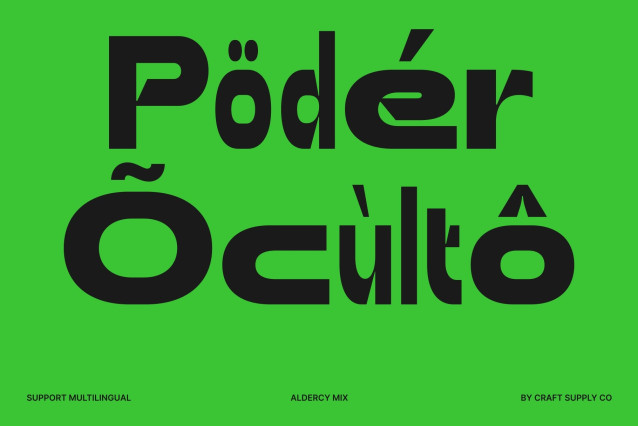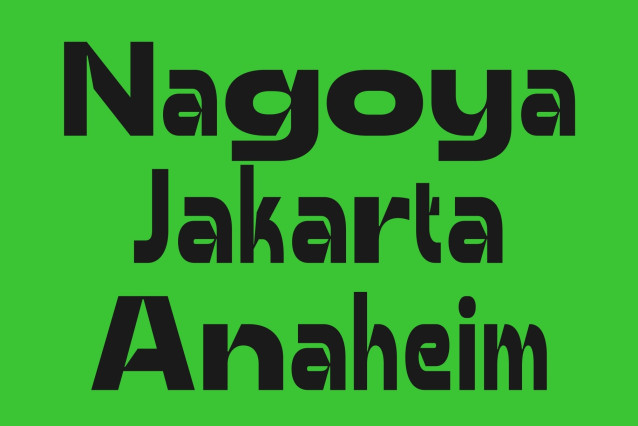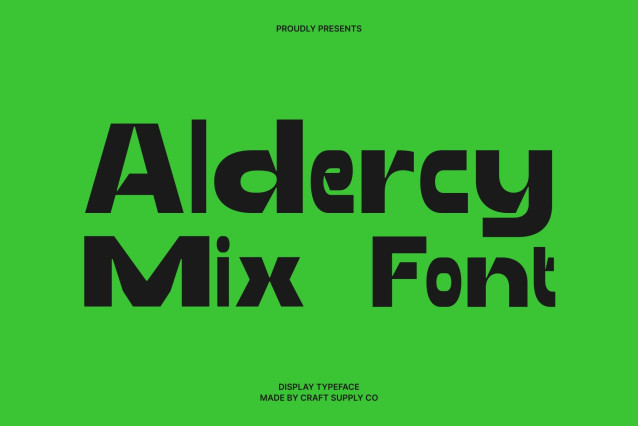
Aldercy Mix Font
Aldercy Mix – Bold Modern Sans Serif: Sleek Strength with Contemporary Confidence
Modern Sans Serif with Mixed Style Character
This is a bold modern sans serif font designed to express confidence, clarity, and refined sophistication. Built with clean lines and a strong visual presence, this typeface introduces a distinctive mixed-style concept that enhances rhythm and contrast across every composition. It delivers a contemporary typographic voice that feels both powerful and elegantly controlled.
A Dynamic Blend of Bold and Regular Letterforms
The defining strength of this font lies in its seamless fusion of bold and regular characters. This mix creates visual hierarchy and dynamic movement, transforming typography into a more expressive and engaging design element. The contrast between weights enhances readability while adding depth and personality to every layout.